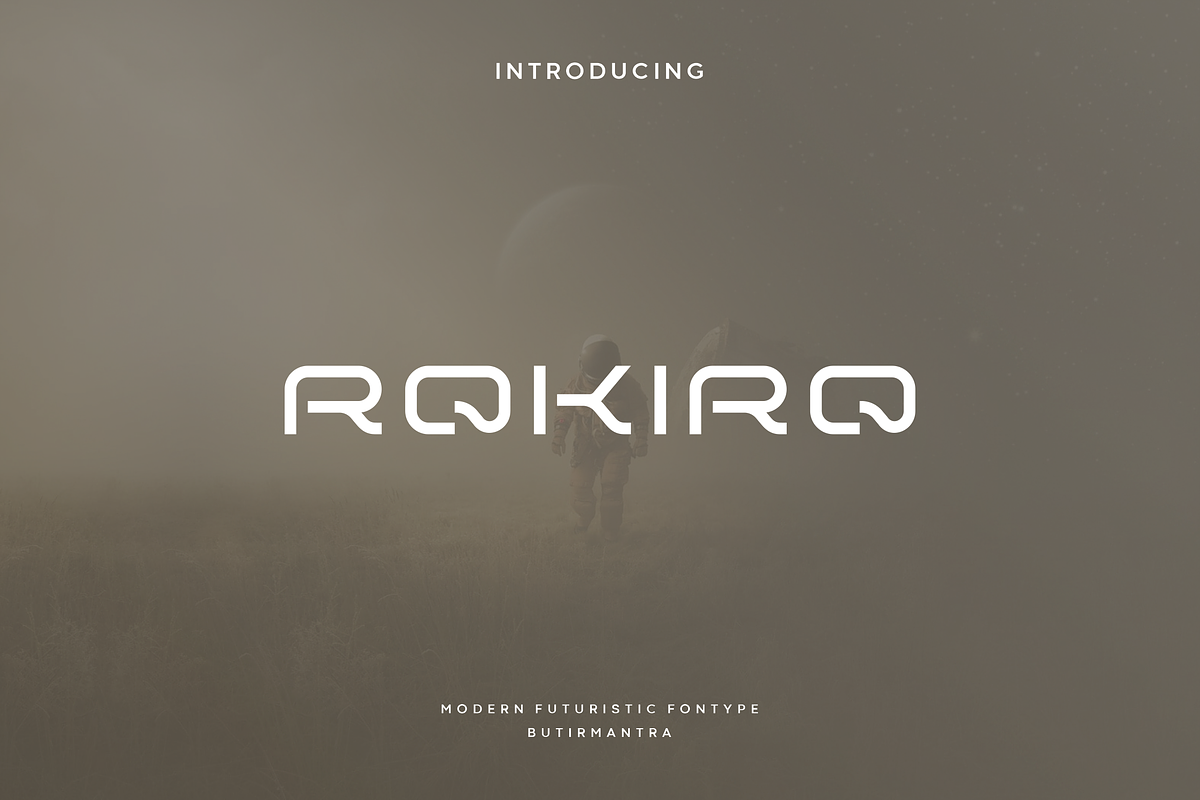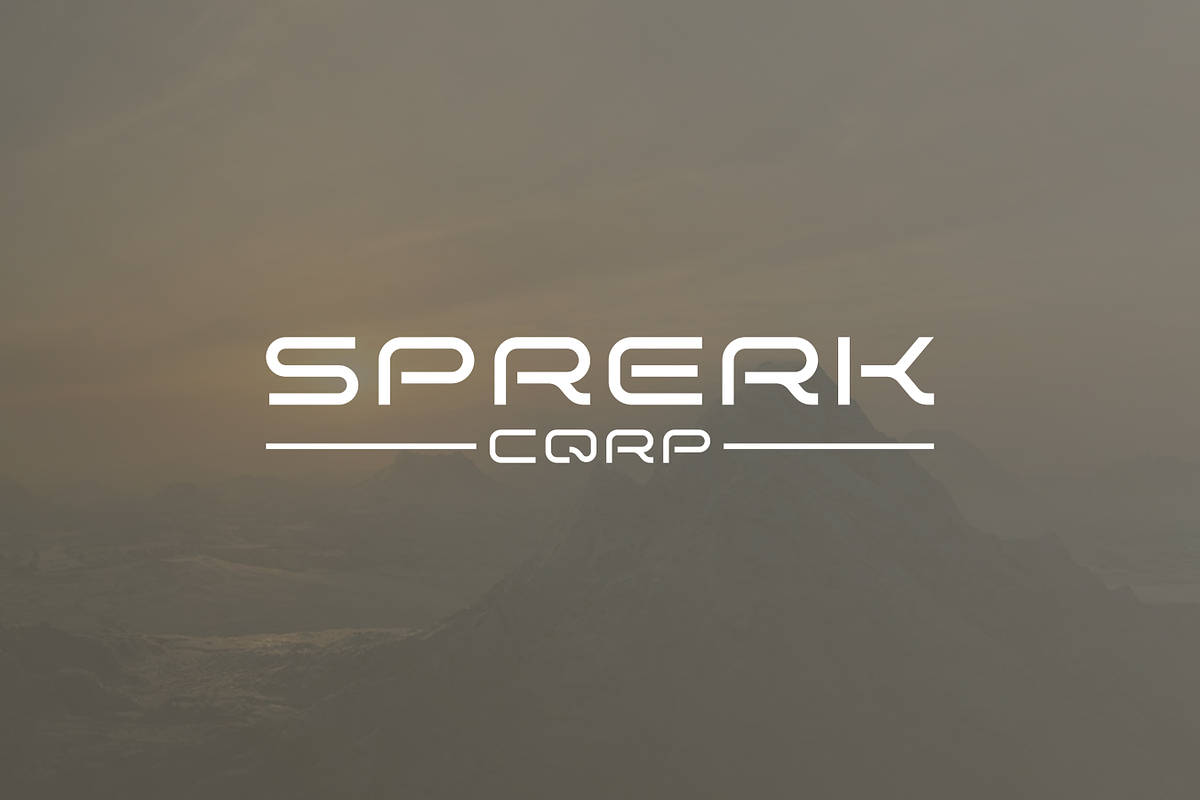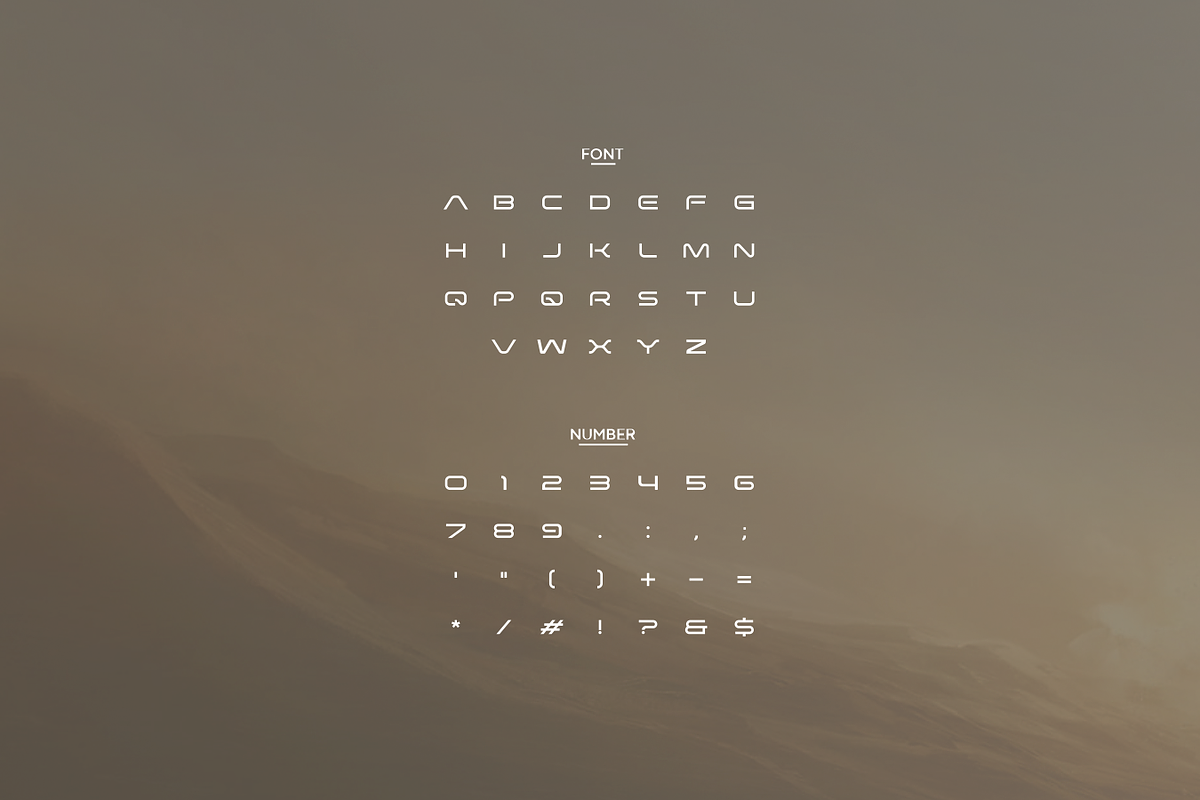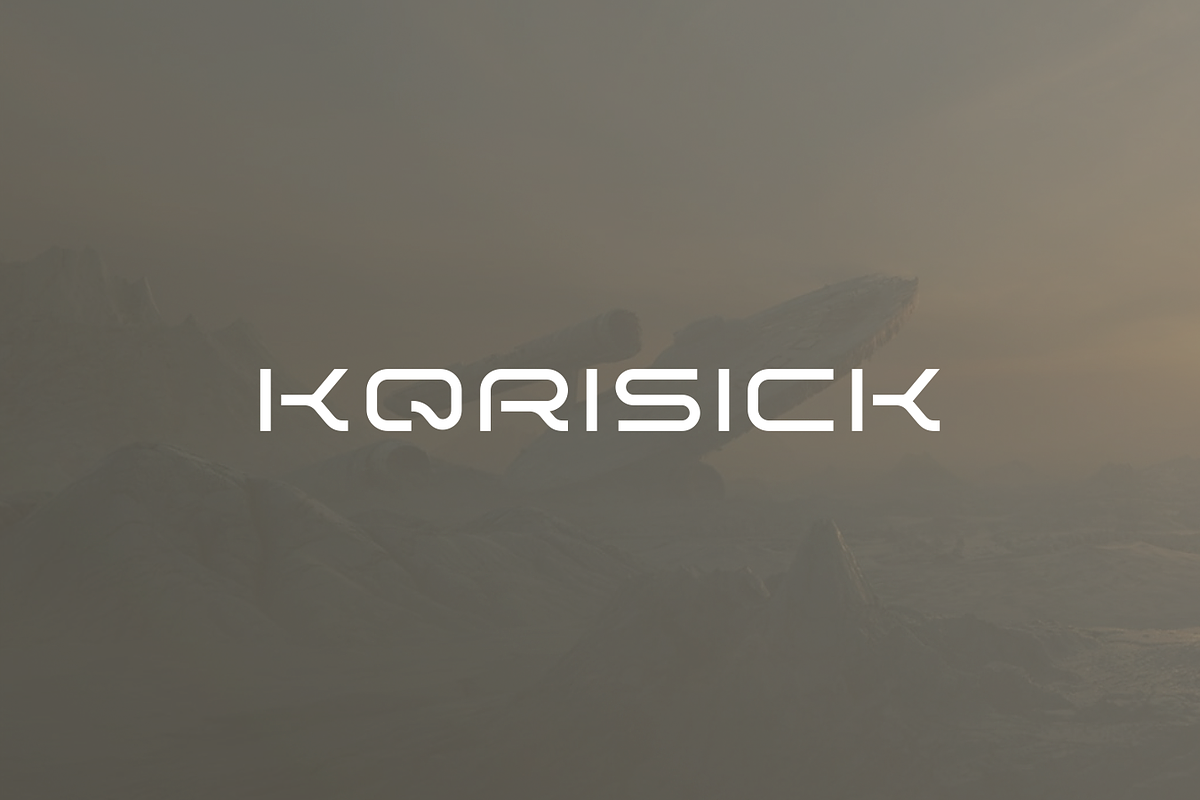
Rokiro - Modern Futuristic Typeface
Rokiro fonts that create a futuristic, sophisticated and elegant hi-tech atmosphere and style. This font looks great as header, tittle and as text both, use this font in your various projects. Rokiro font can use for in fields technology, like robot & android, hi-tech, future, virtual reality, outer space, and many others. Use this font for your futuristic modern looking designs as well as your own unique designs!